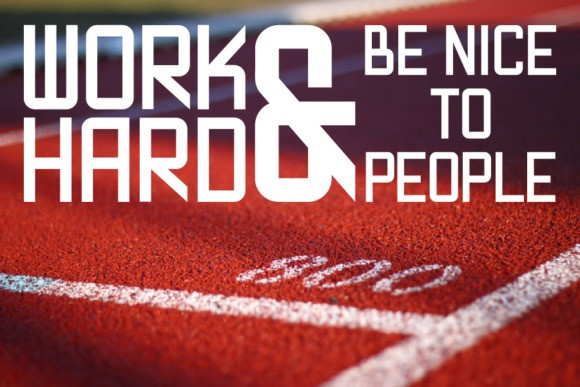
Blackrough Sans Serif Font
Blackrough Sans Serif – Free Demo
Say hello to Blackrough Font. This is a modern sans serif font. It’s narrow powerful shapes lend itself to strong design, whilst the textures give it an authentic voice! It’s designed and shared by Sign Studios. It’s a bold and elegant sans serif font with a distinctive look. Get inspired by its unique charm! Great for designing bold logos, attention grabbing posters, business cards or anything in between. With strong letterforms, this font is perfect for making a statement and staying bold with your designs.